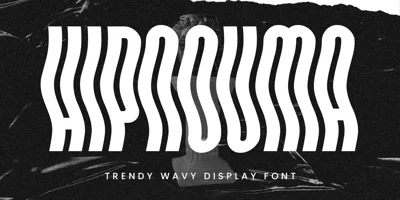
Hipnouma Font
Hipnouma Font is a captivating and avant-garde typeface that pushes the boundaries of traditional typography, perfect for projects seeking a truly unique and artistic statement. This experimental font is exceptionally well-suited for creative applications that demand a distinct, often abstract, or deeply conceptual aesthetic. Imagine Hipnouma Font gracing the cover of an experimental music album, adding an intriguing visual puzzle to art exhibition posters, or enhancing the branding for cutting-edge design studios. It's also ideal for crafting unique editorial layouts for independent publications, designing striking visuals for digital art installations, or lending an unforgettable character to motion graphics and animation titles. Its unconventional forms and often surprising negative spaces make it superb for designs that challenge perceptions and invite closer inspection.
What makes Hipnouma Font so exciting is its audacious departure from conventional letterforms, offering a fresh visual language that genuinely stands out. It possesses an inherent mystery and artistic freedom, as if each character is a piece of contemporary sculpture, bringing a sense of intellectual curiosity and modern creativity to your text. This font isn't just about conveying words; it's about conveying an experience, an emotion, or a profound concept. Its abstract qualities and bold interpretation of structure create a rich visual puzzle that instantly captivates and encourages engagement, making it truly compelling for projects that dare to be different.
Hipnouma Font typically focuses on its unique display characteristics, often available in a standard regular weight, possibly with a few stylistic alternatives that emphasize its experimental nature. While it may not feature an extensive range of weights or styles like a traditional text font, its strength lies in the singular vision and consistent design of its primary form. Its bold interpretations of classic letter shapes ensure that its distinctive appearance is maintained across various applications, making it highly effective for impactful headlines, artistic logos, and designs where a profound and memorable visual impact is desired.